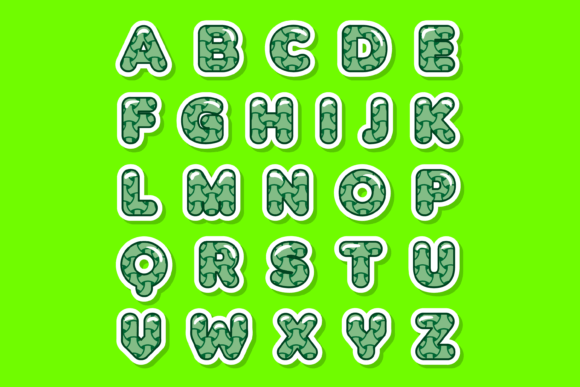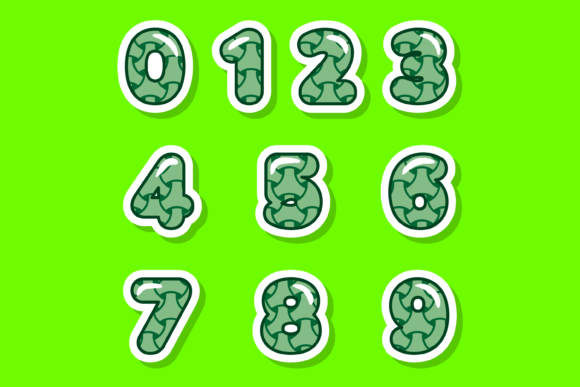
Introduction to Japanese Weave Font
Japanese Weave is an incredibly cool color.
Whether you use it for custom designs, DIY crafts, or just any creation that requires a lovely touch, this font will be an amazing choice Note.
Key Features of Japanese Weave Font
Why Choose Japanese Weave Font?
Japanese Weave Font offers exceptional quality and versatility, making it a valuable addition to your design toolkit. Whether you’re creating for personal projects or commercial use, Japanese Weave Font delivers professional results.